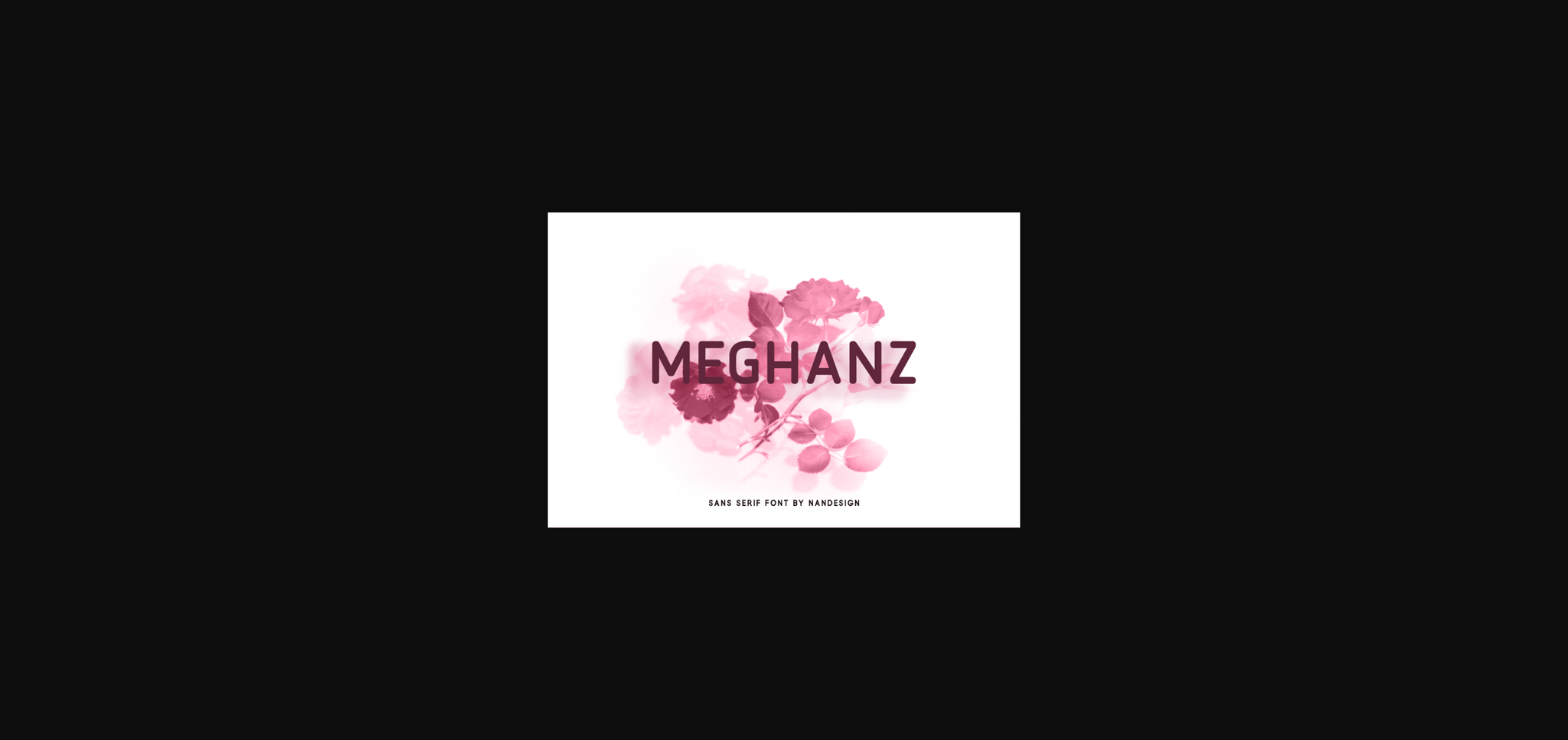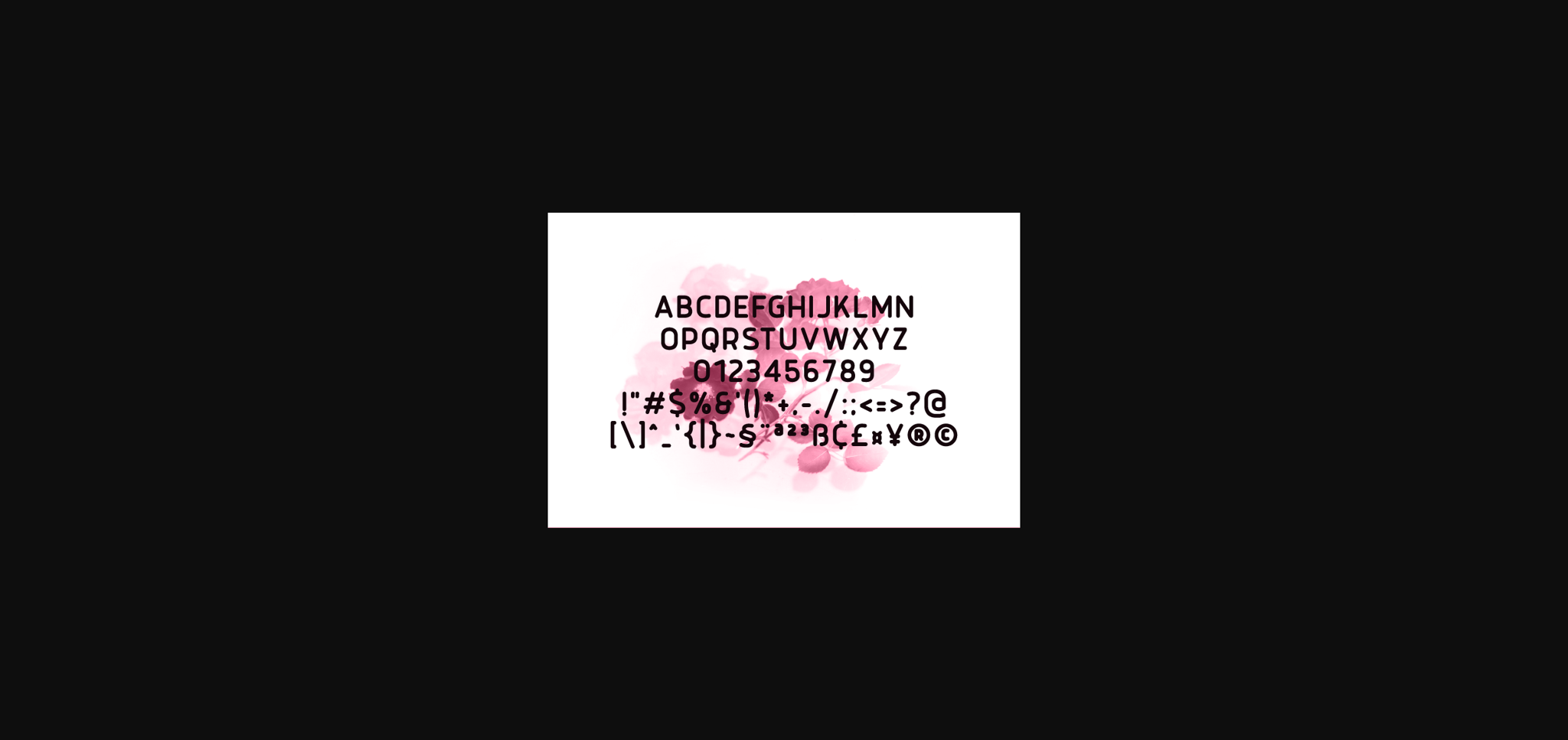
About Meghanz Font
Meghanz is a clean and strong sans serif font. It will elevate a wide range of design projects to the highest level, be it branding, headings, wedding designs, invitations, signatures, logos, labels, and much more!